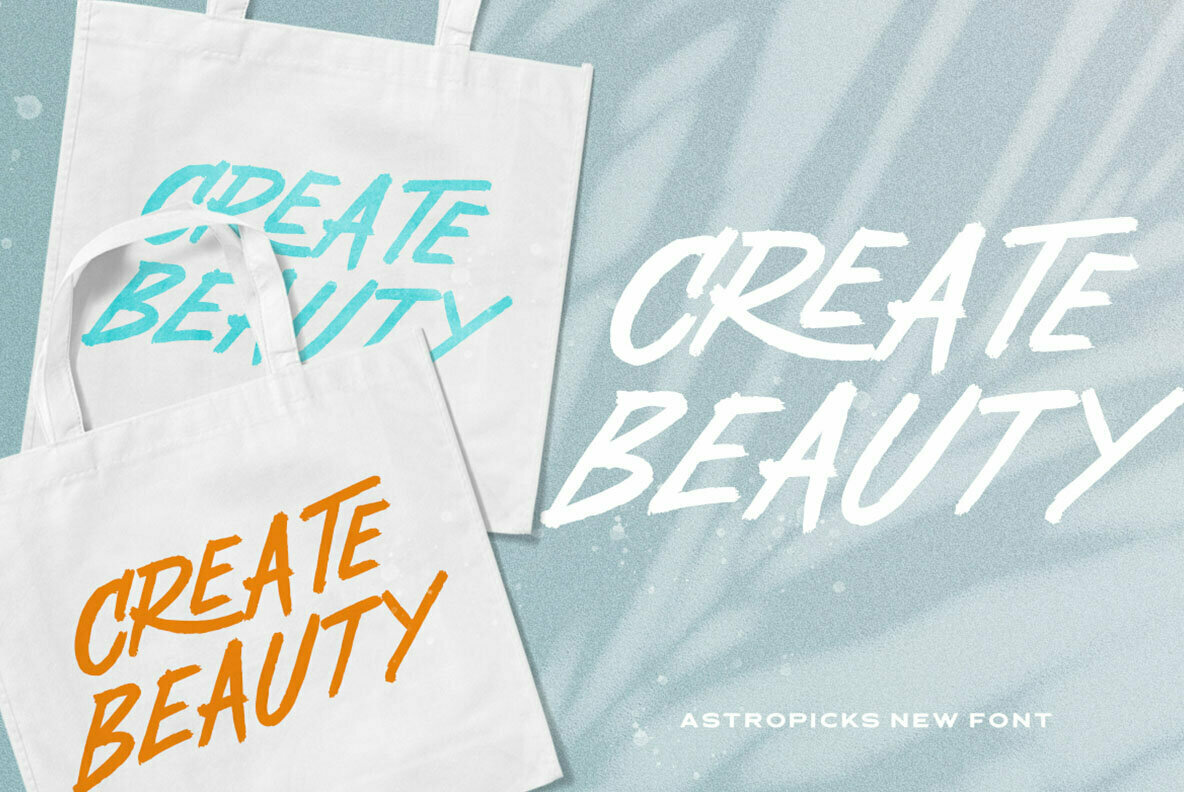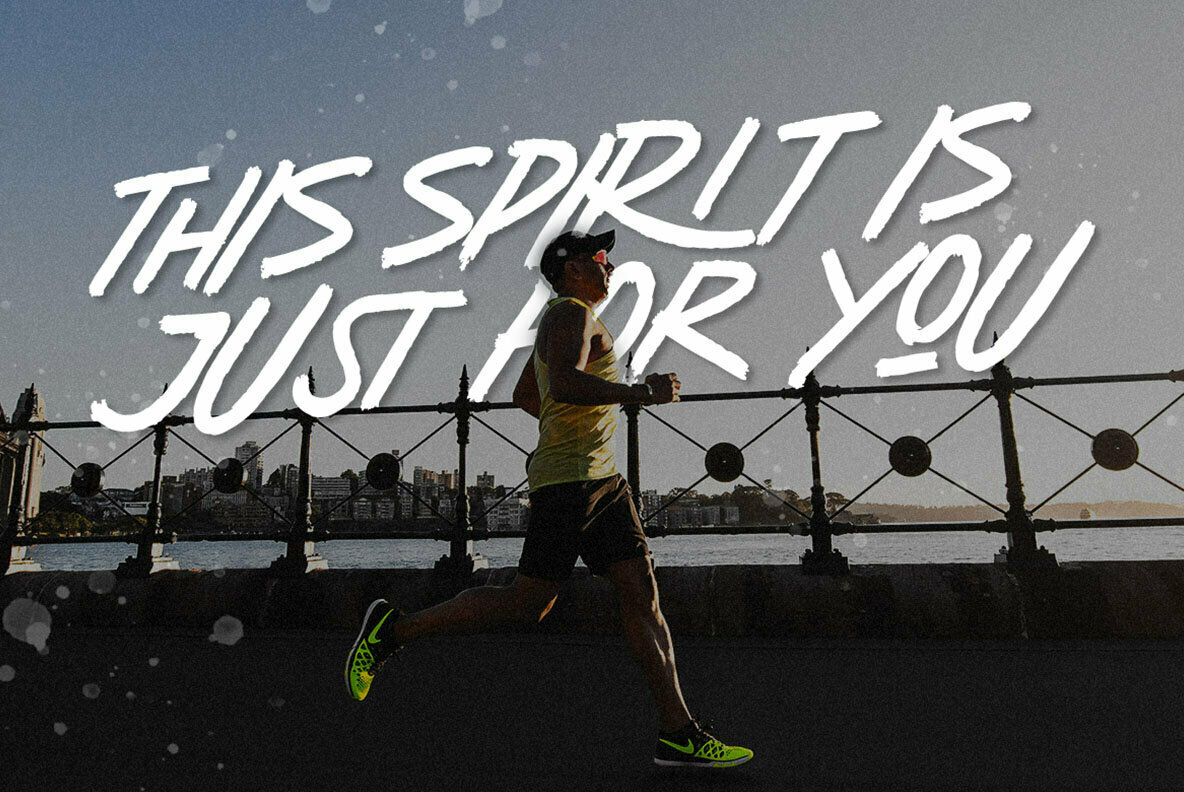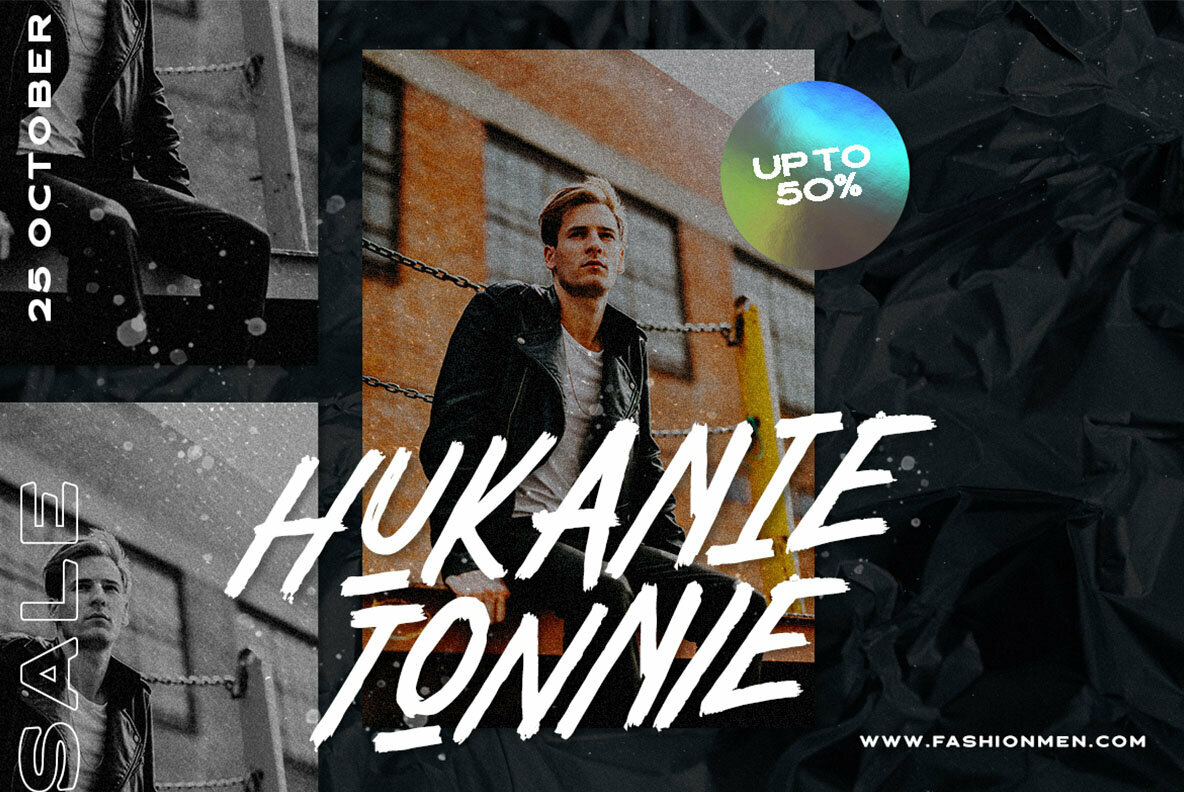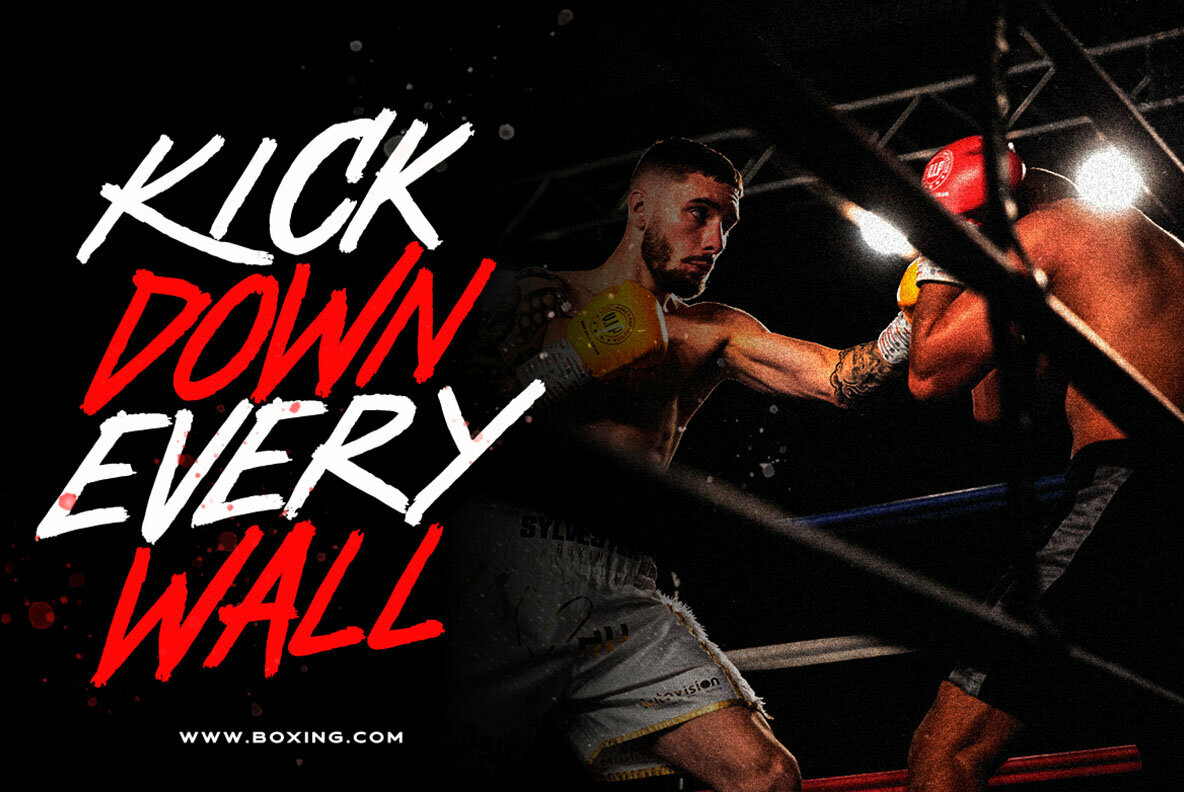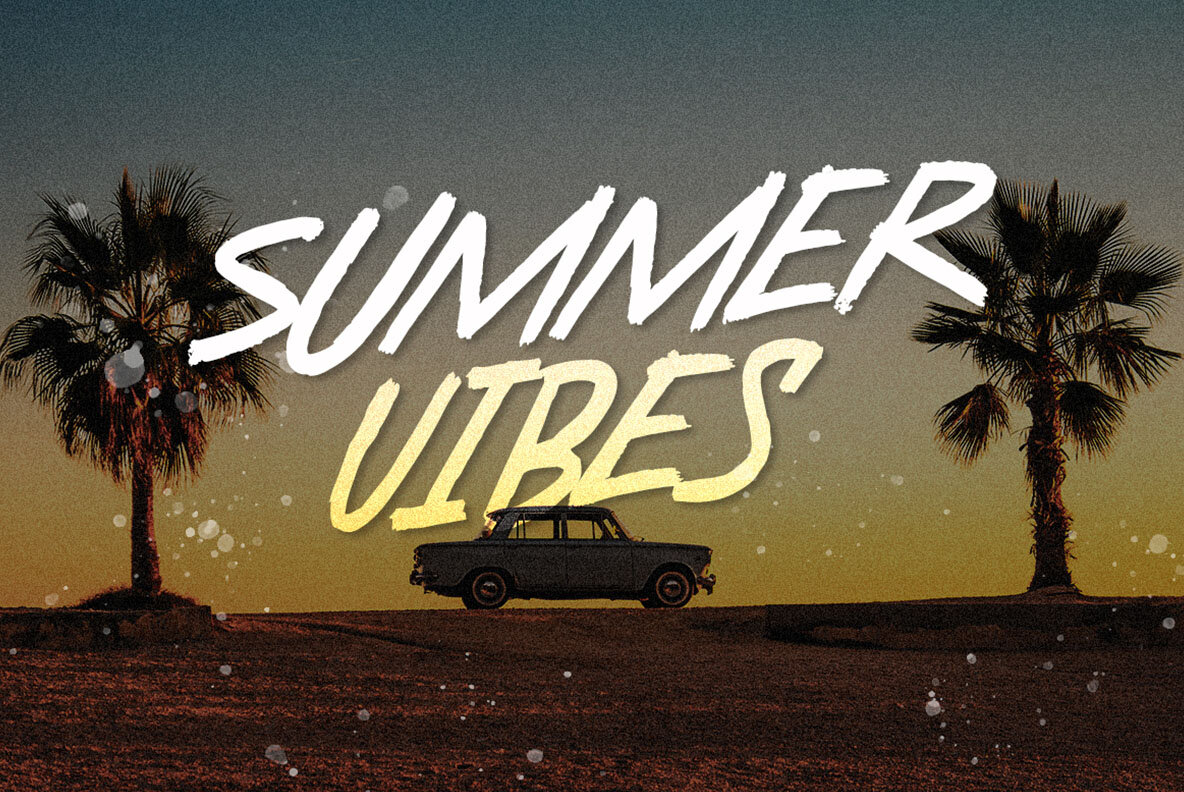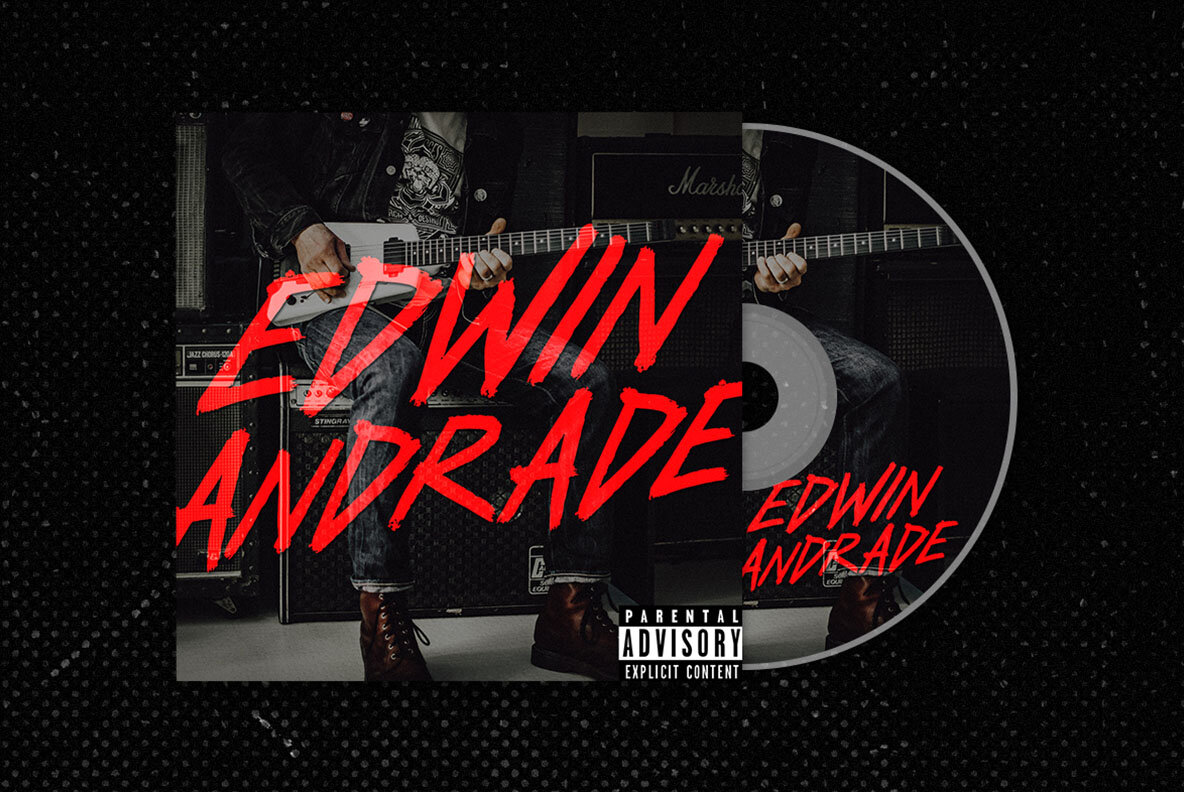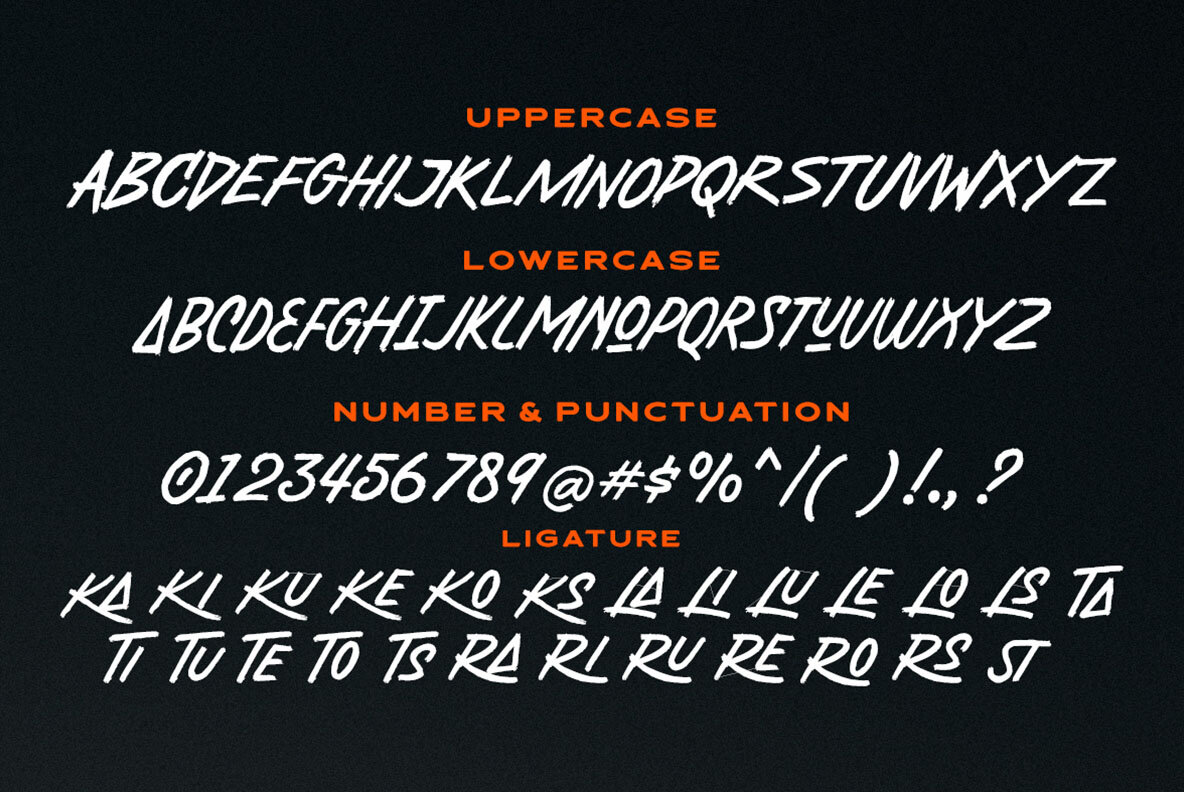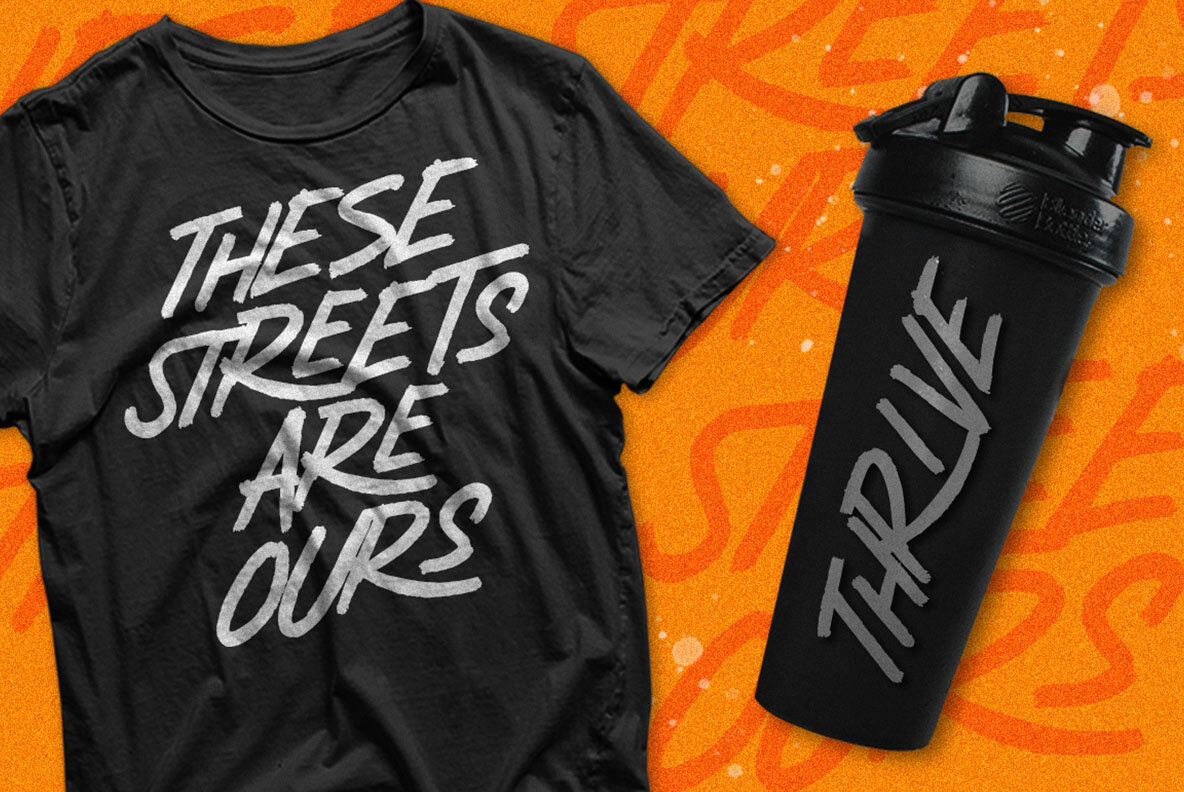
Astropicks Font
Astropicks Regular
Astropicks is expertly designed for headline and display purposes, offering a versatile option for creative projects. With its playful yet modern aesthetic, this typeface is ideal for logos and a wide array of formal applications. Specifically crafted for diverse uses, Astropicks enhances projects ranging from invitations and magazines to packaging and stationery. It adds a unique charm to branding and advertising endeavors.Astropicks: Playful Typeface for Modern Headlines